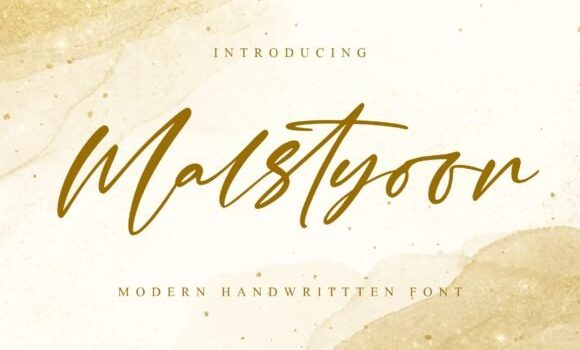
malstyoor
Malstyoor Font – Free Download Introduction to Malstyoor Font Malstyoor is a modern and stylish script font that has been masterfully designed to become a true favorite. 📸 Preview Gallery 6 images 📌 Product Name Malstyoor Font 👤 Author AbasCreative